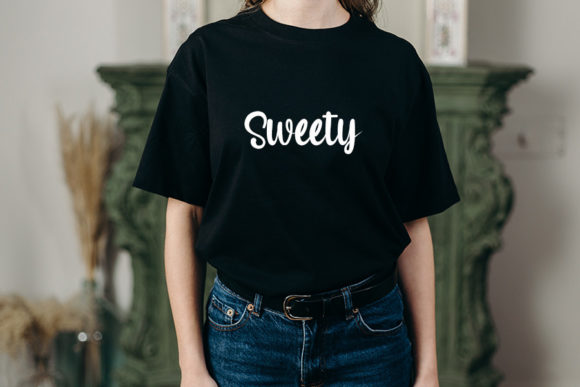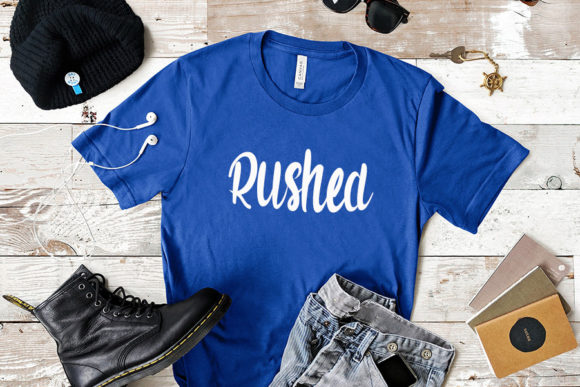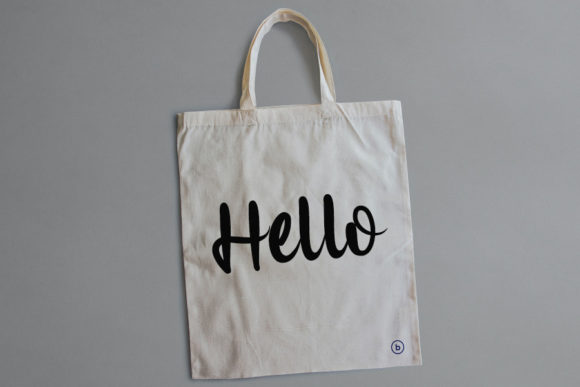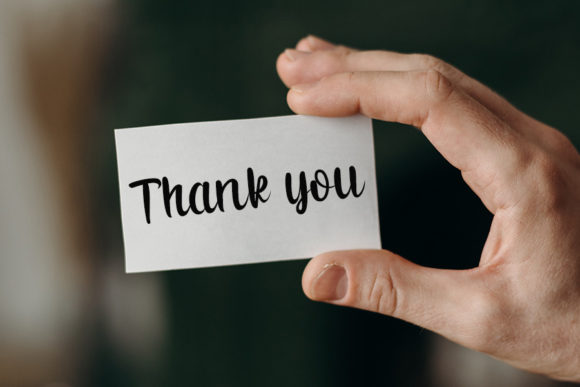
The Delight Font: Elevating Your Designs with Elegance
I’ll never forget the moment I stumbled upon the Delight font. I was working on a project for a client who wanted a elegant and sophisticated look, but I was struggling to find the right font to match their brand. That’s when I discovered Delight – a delicate, elegant, and flowing handwritten font that instantly caught my attention. With its beautiful and well-balanced characters, I knew I had found the perfect match. In this article, I’ll share my experience with Delight, its features, and how to make the most of it in your designs.
A Personal Review: What I Love and What to Watch Out For
- 💫 Delight’s elegant and flowing script is perfect for adding a touch of sophistication to any design.
- ✅ The font’s well-balanced characters make it easy to read and understand, even at smaller sizes.
- 🌈 Delight’s versatility allows it to pair well with a wide range of designs, from modern and minimalist to vintage and ornate.
- ⚠️ Delight’s script style may not be suitable for very long blocks of text or body copy, as it can be a bit challenging to read.
- 🤔 Some users may find the font’s elegance and sophistication limiting for more playful or casual designs.
Exploring Alternatives: Similar Fonts to Delight
If you like Delight, you may also want to consider the following fonts:
- Elegy: A sophisticated and elegant script font with a similar feel to Delight. Use it for high-end branding and luxury designs.
- Lola: A playful and whimsical script font with a more casual feel. Use it for creative projects and designs that require a touch of personality.
- Corbel: A elegant and refined script font with a similar sense of sophistication. Use it for formal designs, such as invitations and certificates.
- Pacifico: A beautiful and elegant script font with a more relaxed feel. Use it for designs that require a touch of elegance and sophistication.
The Story Behind Delight: Designer Inspiration
Delight was designed by a team of typographers who wanted to create a font that would evoke a sense of elegance and sophistication. Inspired by traditional calligraphy and handwriting, they crafted a font that would be both beautiful and functional. With its delicate lines and flowing script, Delight is the perfect choice for designers looking to add a touch of refinement to their work.
Q: What is the Delight font best suited for?
A: Delight is best suited for designs that require a touch of elegance and sophistication, such as luxury branding, wedding invitations, and formal events.
Q: Can I use Delight for body copy or long blocks of text?
A: While Delight is a beautiful font, it may not be the best choice for long blocks of text or body copy, as it can be a bit challenging to read.
Q: Does Delight support OpenType features?
A: Yes, Delight supports OpenType features, such as glyphs and stylistic alternates, which can be accessed in compatible design software.